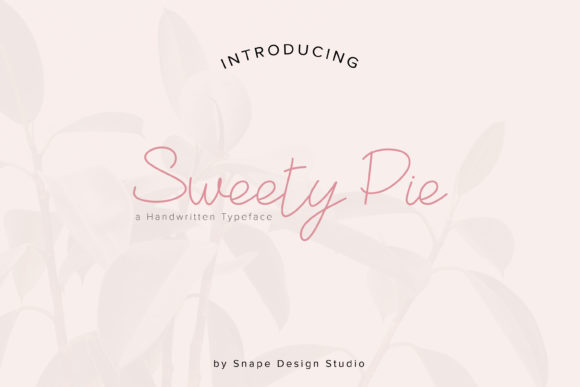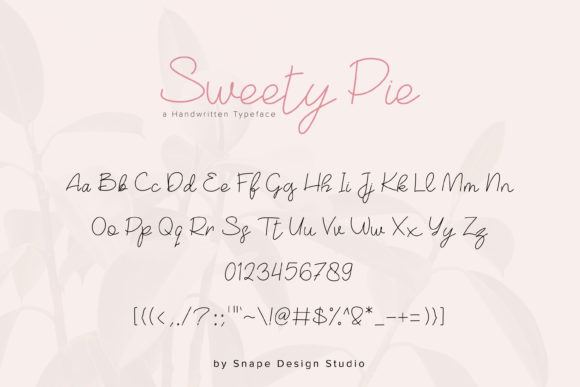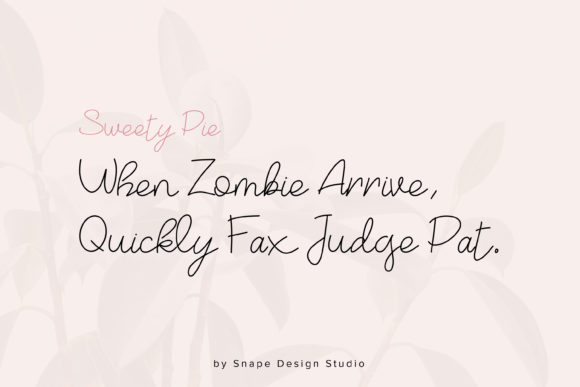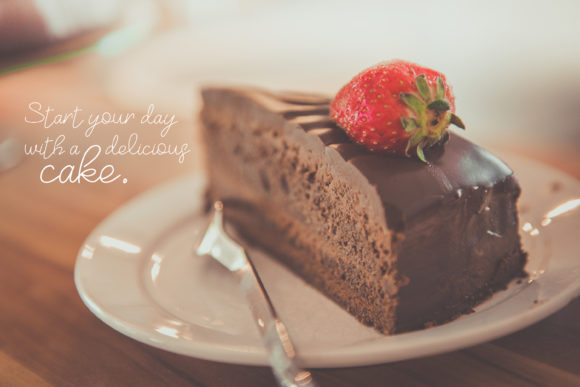
Sweety Pie Font
About Sweety Pie Font
Sweety Pie is a delicate and playful handwritten font. Dainty and cute, this font will bring a spark of romance to each of your designs.